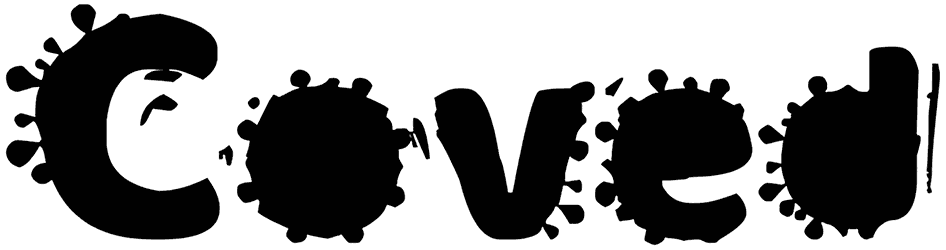
Coved Font
We strongly recommend you get out of your comfort zone and pick up a strange display font, such as Coved, for your creative ideas. In this way, you can prove your courage as a professional graphic artist and boost the diversity of your illustrations, educational brochures, stickers, or social media posts.